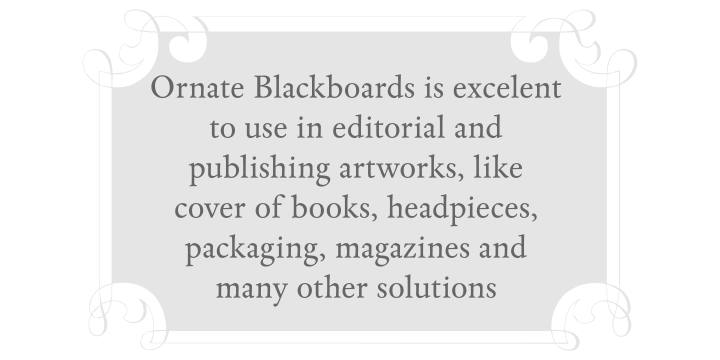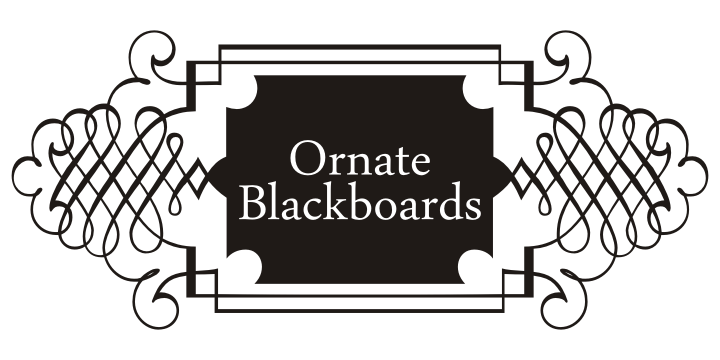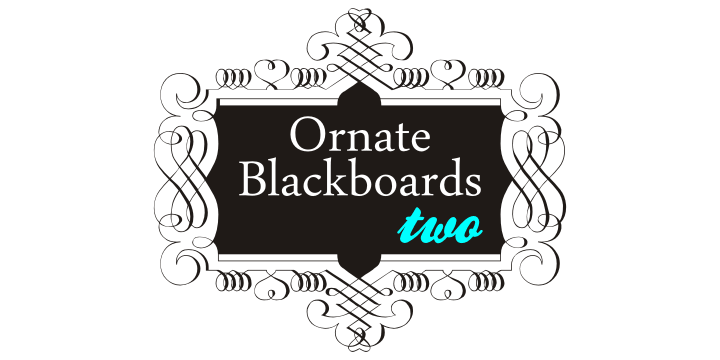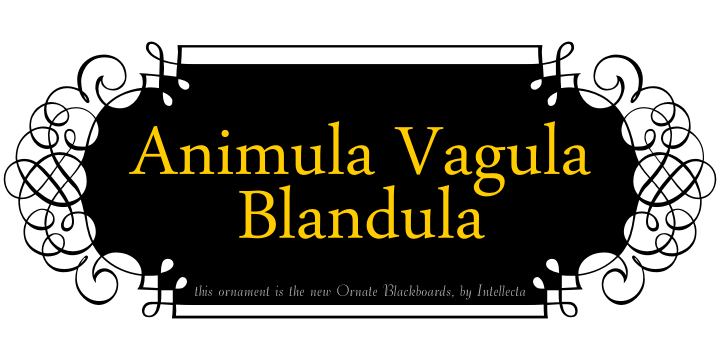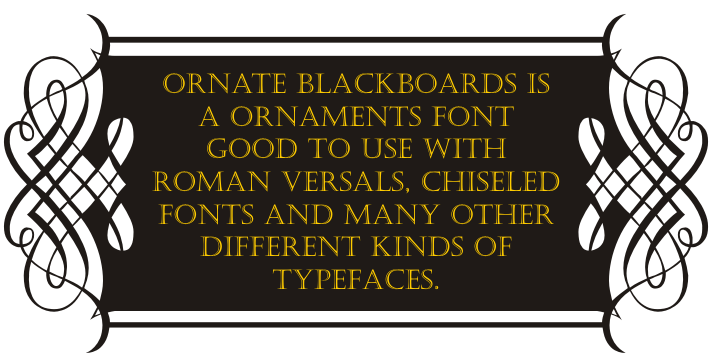
Ornate Blackboards is a dingbat font family. This typeface has two styles and was published by Intellecta Design.
Ornate Blackboards is a beautiful collection of ornaments from Intellecta Design, excellent for use in works of art and editorial publications, like book covers, headpieces to sections of books, magazines, packaging works, and many other solutions. Good to use with roman versals, chiseled fonts and many other different kinds of typefaces.